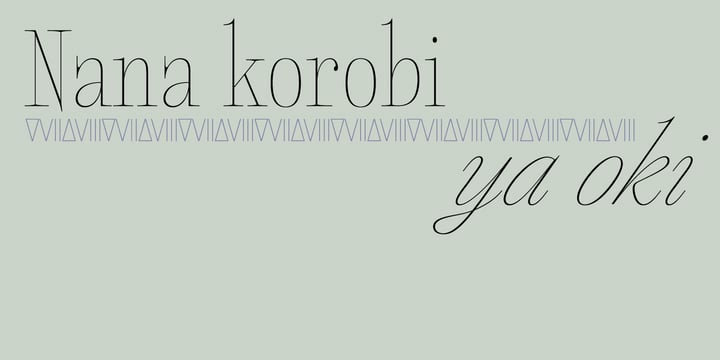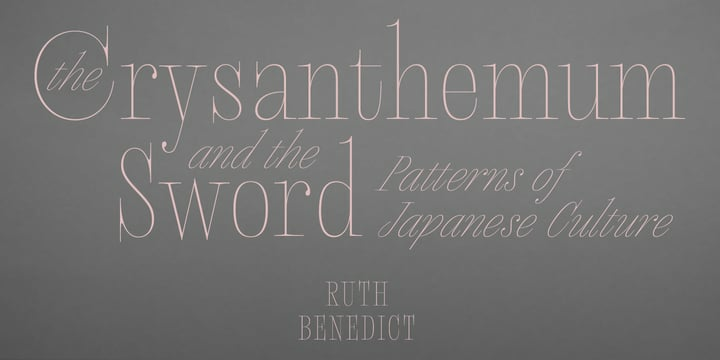
Megumi Font Family
Megumi Font FamilyMegumi was originally commissioned as a headline face for a fashion and lifestyle magazine with a heavy Japanese influence. The uppercase letters are narrow and have an almost monospaced aesthetic, being influenced by Romaji letterforms. Serifs are severe, and curves sinuous. Although experiments were made with extra weight, it was decided that only this ultra light weight would be developed, to be set large in headlines. The italic has an over-the-top 35° slant (so slanted in fact that the backslash from the italic is the exact same shape as the forward slash in the Roman) and a discretionary ligature feature that can be engaged to add extra interest to headlines. The Roman has a few wide alternate glyphs for round uppercase characters. Both styles have a stylistic set (ss03) feature which switches regular parentheses for angle brackets, which the Art Director thought “looked cool”.
In a mess of venture capitalist pull-outs and Covid related issues, the publication never came to be, but the Hipster Japanophile Magazine World’s loss is your gain, as this beautifully crafted, editorial oddity is now available to license. Use it editorially, obviously, but it would also look great on posters, perfumes, postmodern publications, and perhaps some other things that don’t begin with p.